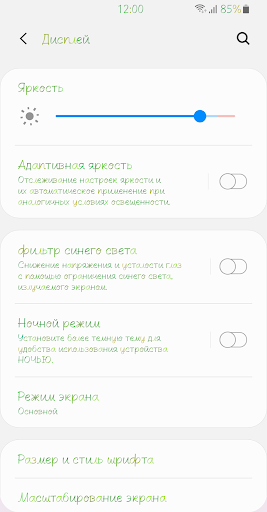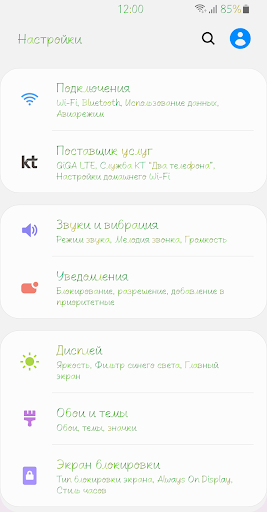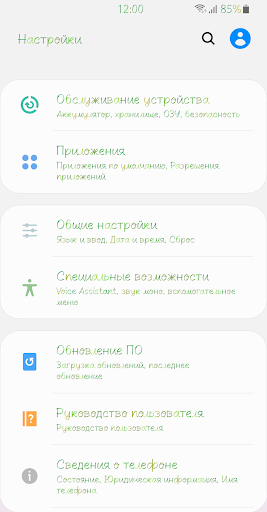
ZF Mangrove
This font is a handwriting style font that resembles the look of nature.
The natural movement and smooth change in thickness felt in pen writing give a familiar and comfortable impression.
It contains clear and stable colors felt in the forest.